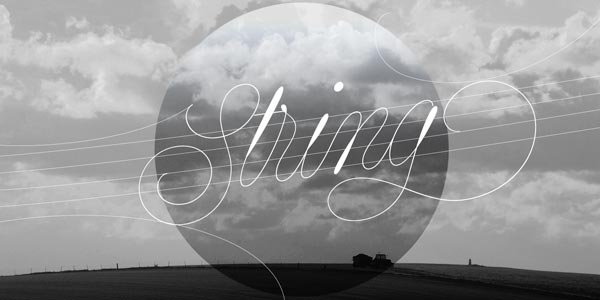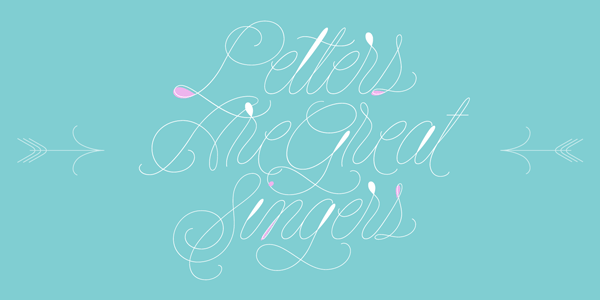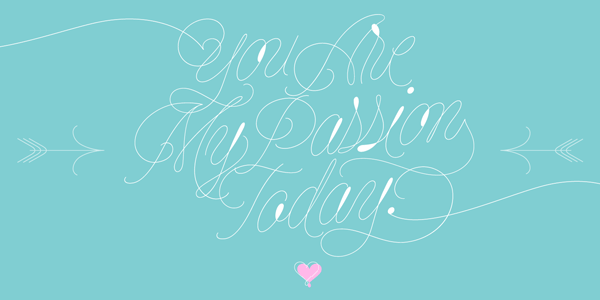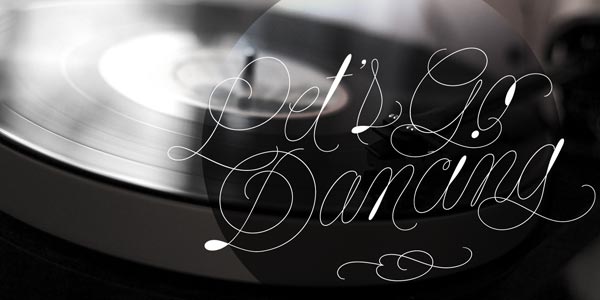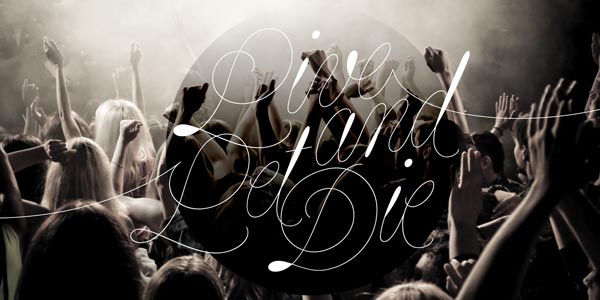
String – Sweeping Script Font.
String is an elegant monoline script font designed in 2013 by Maximiliano Sproviero (Lián Types). Its sweeping typeface is inspired by the sound of acoustic guitars. This decorative display font gives your design an outstanding look. The String font includes two styles: the standard String font and the String Hole version. String’s unique look offers lovely curves as well as hairlines with a lot of emphasis on simplicity.